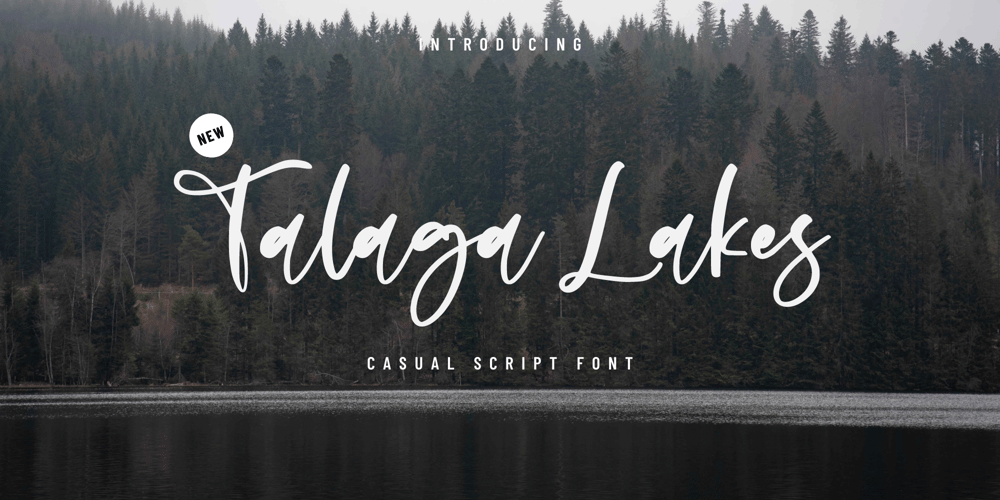
Talaga Lakes Font Family was designed by Amin Maryono and published by Aminmario Studio. Talaga Lakes contains 2 styles and family package options. Talaga Lakes FontTalaga Lakes is a casual script font. Its modern charm makes it appear wonderfully, readable, and, ultimately, incredibly versatile. This font will look outstanding in any context, whether it’s being used on busy backgrounds or as a standalone headline!Thank you for the purchase.Happy creating design 🙂